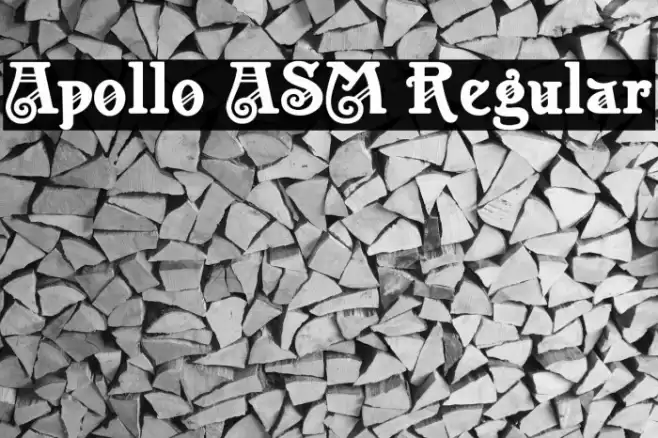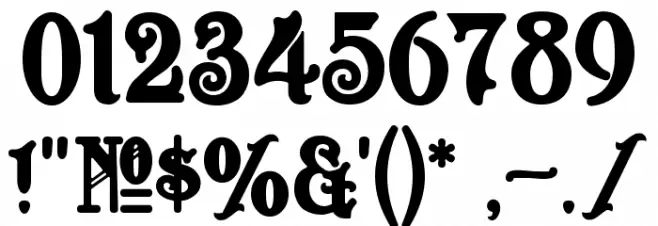
Apollo ASM Regular Font
Apollo ASM Regular Description
This font features a bold and decorative style with intricate swirls and embellishments on each character, giving it a unique and artistic flair. The uppercase letters are particularly ornate, with additional loops and curls that add to the overall dramatic appearance. The lowercase letters maintain a similar decorative style, though slightly more subdued, ensuring readability while still being visually striking. The numerals and special characters follow the same ornate design, making them cohesive with the alphabet. This font is ideal for projects that require a touch of elegance and creativity, such as invitations, posters, or branding materials.
A bold, decorative font with intricate swirls and embellishments from Uncategorized fonts.